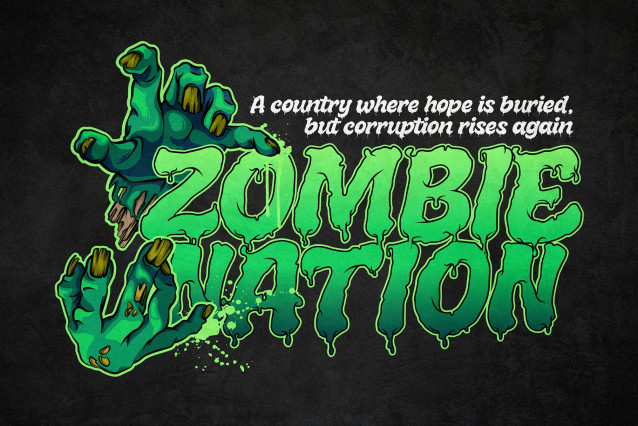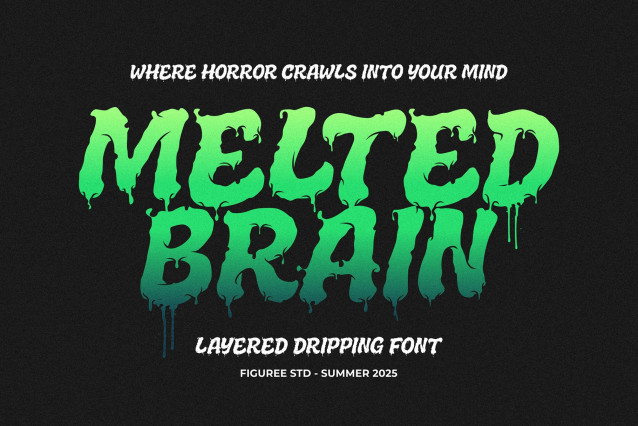
Melted Brain Font
Melted Brain Font, a dripping layered Halloween font that oozes with personality and dark charm. Designed for horror fans, Halloween lovers, and creative rebels, this font transforms your text into a haunting visual statement. With uppercase, lowercase, and numbers, plus three unique styles — Regular, Outline, and Shadow — Melted Brain offers endless creative possibilities for posters, party invitations, merchandise, and social media graphics.
Whether you’re designing a haunted house flyer, a creepy YouTube thumbnail, or a spine-chilling book cover, Melted Brain injects the perfect amount of fear and fascination into your design. The dripping effect mimics melting wax, goo, or slime, adding an immersive and sinister touch that makes your work stand out.